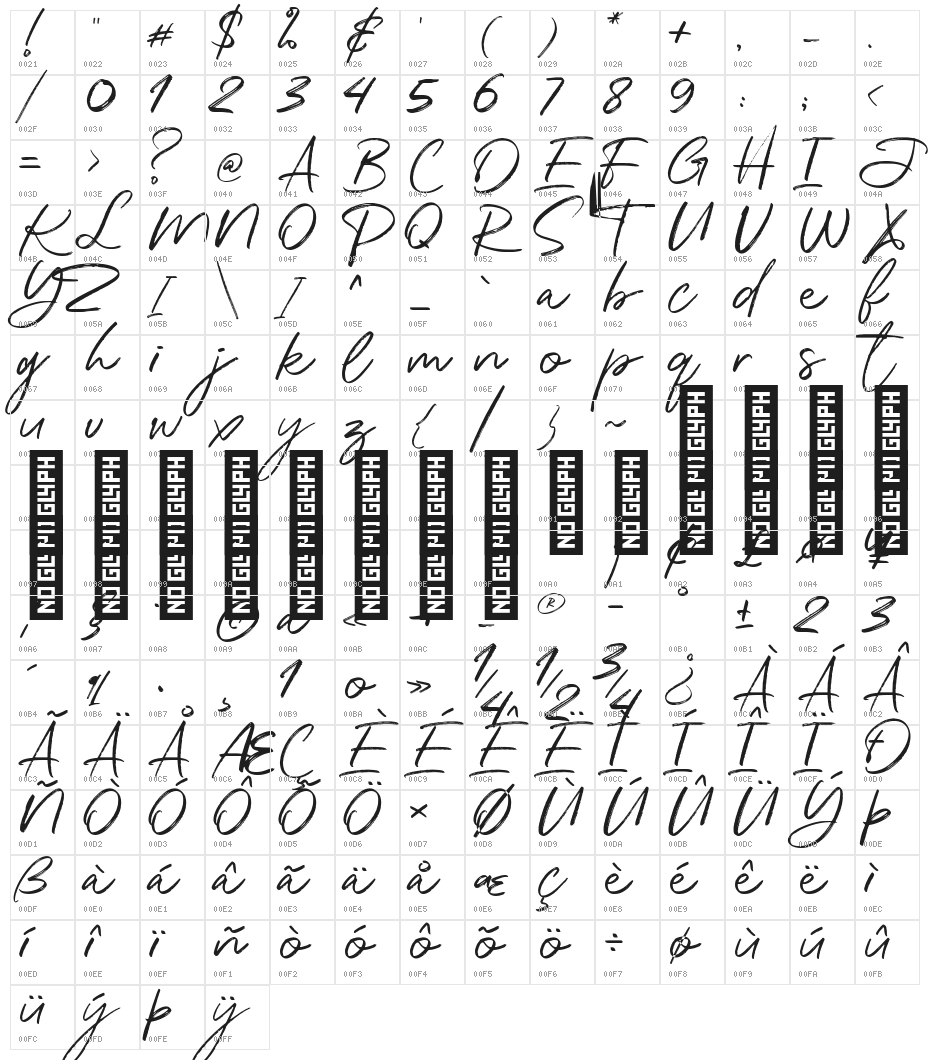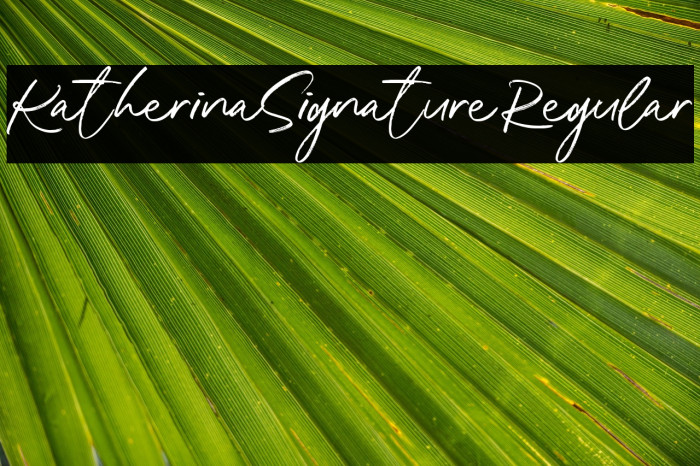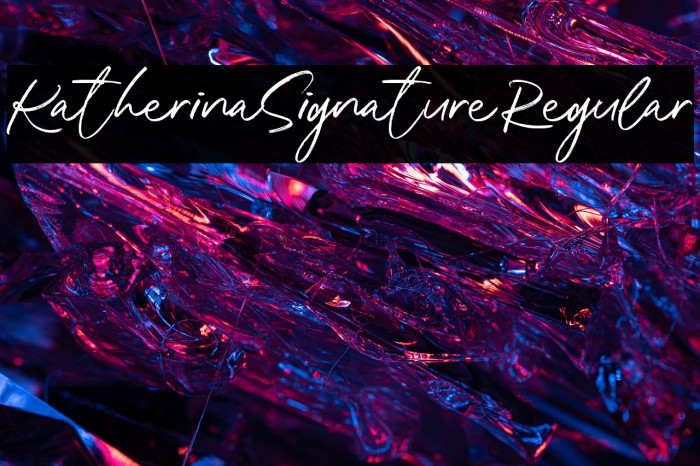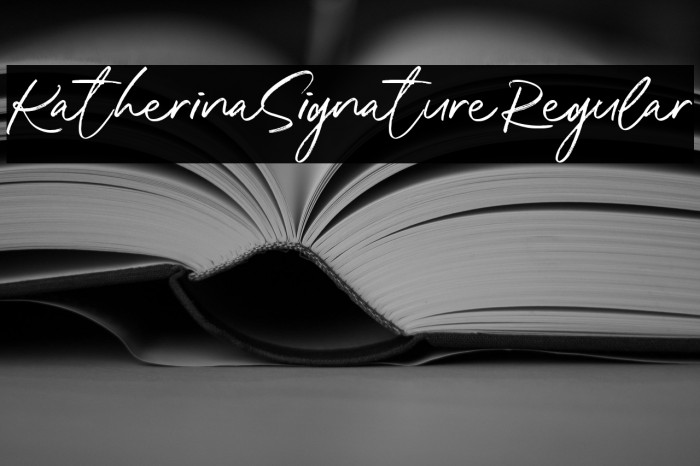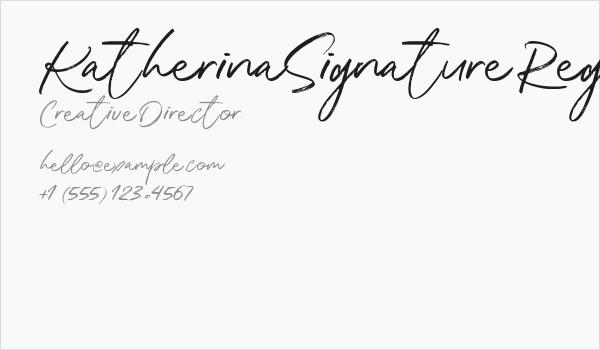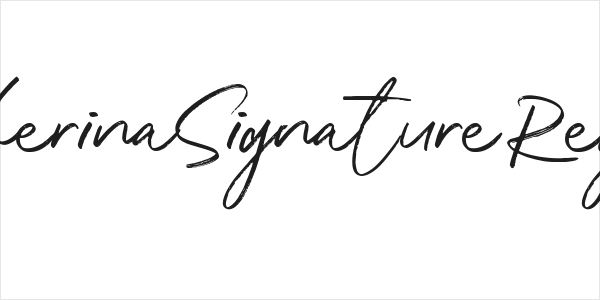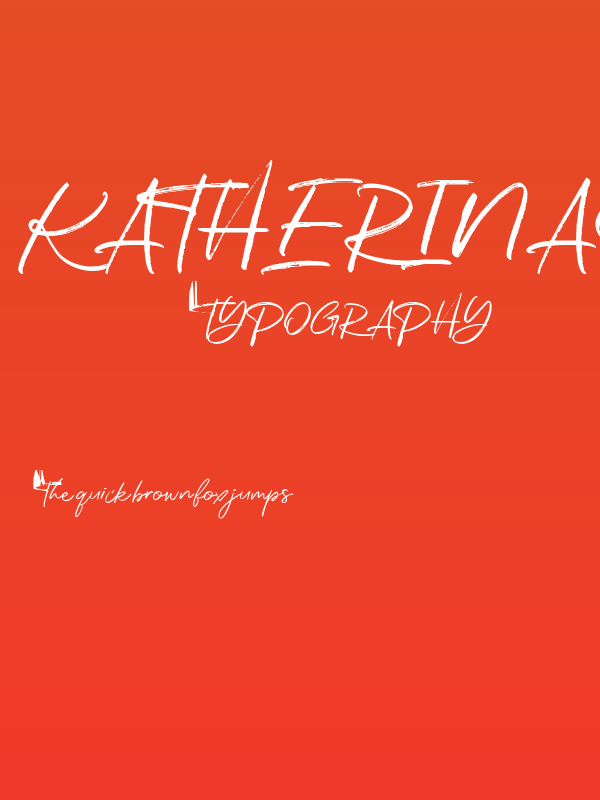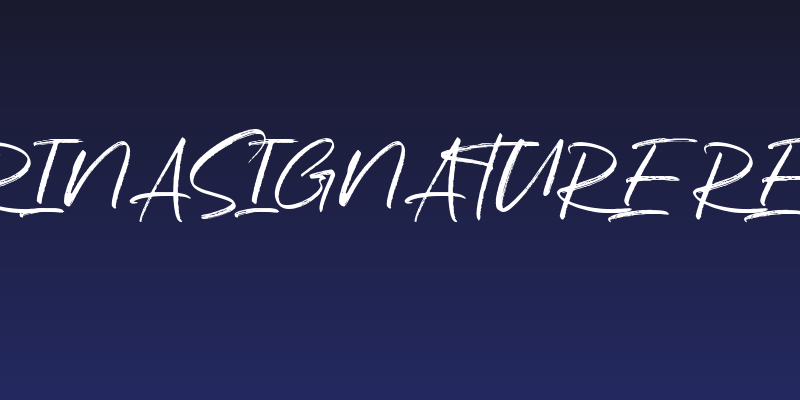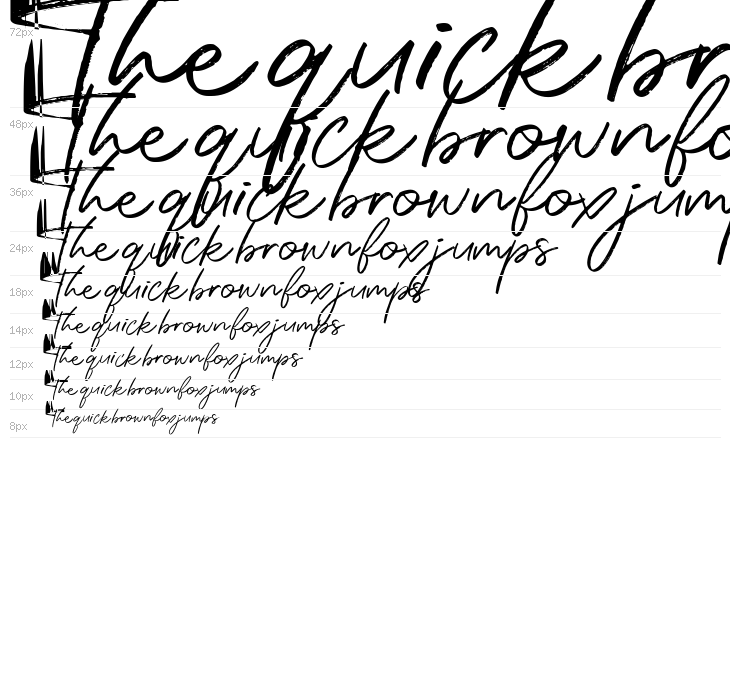
Katherina Signature Regular Font
Katherina Signature Regular Description
A flowing, handwritten script font with a natural and elegant style, featuring smooth curves and varying stroke thickness.
| Use Case | Logos, Signatures, Invitations |
| Proposed Projects | Invitations, personal branding, greeting cards. |